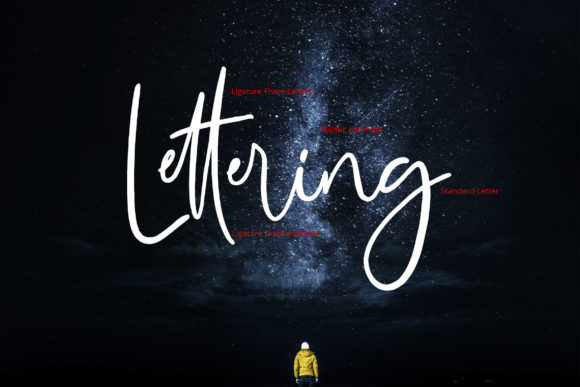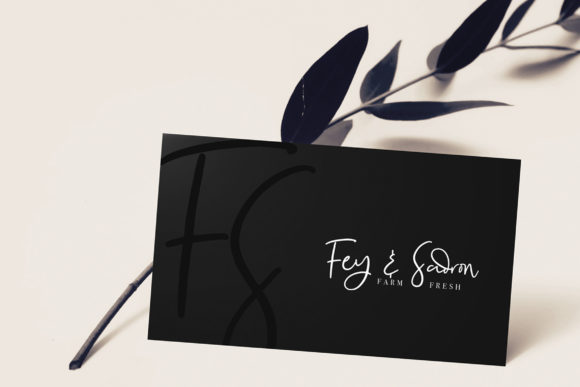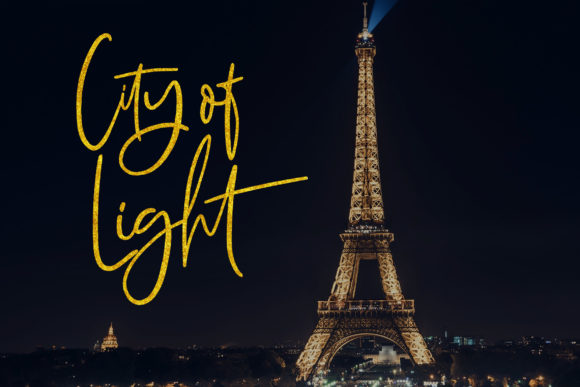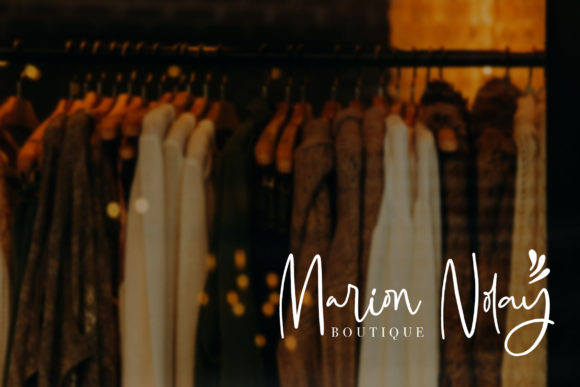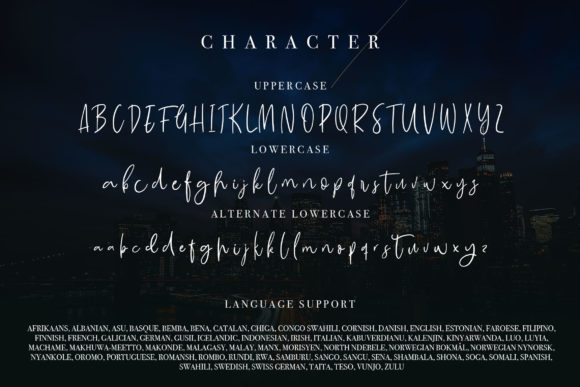
Discover the Power of Madeleine Font
Have you ever found yourself staring at a blank page, desperately searching for that perfect design element to bring your creative project to life? For designers, this moment is all too familiar. It’s the spark that sets off a chain reaction of inspiration and imagination. But what if you had the perfect tool at your fingertips to elevate your designs and make them truly stand out?
Enter the Madeleine Font, a stunning handwritten font with a bold twist that’s sure to captivate your audience. This versatile design resource is not only a high-quality addition to any project, but it’s also free to download and use, making it an absolute treasure for designers of all levels.
With its transparent background and elegant script, the Madeleine Font is the perfect solution for designers looking to add a touch of sophistication and creativity to their work. Whether you’re working on a personal or professional project, this font is sure to be a valuable asset in your design arsenal.
Key Features of Madeleine Font
- High-quality, professional design ideal for creative projects, such as invitations, greeting cards, and scrapbooking.
- Includes a transparent background, allowing for seamless integration with various design elements and backgrounds.
- Features a unique, elegant script style with beautiful flourishes, making it perfect for adding a touch of sophistication to designs.
Honest Review: Madeleine Font
As a designer, I’m always on the lookout for high-quality fonts to elevate my creative projects. Recently, I had the chance to try out the Madeleine Font, and here’s my honest review.
What works well: ✨ Madeleine Font offers a beautiful, elegant script style that’s perfect for invitations, wedding designs, and other special occasions. The font is highly customizable, allowing me to adjust the size, color, and opacity to fit my design needs. The transparent background feature is also a great asset, making it easy to layer the font over other design elements.
Limitations: ⚠️ While the Madeleine Font is great for many design projects, it may not be the best choice for bold, sans-serif designs. The font’s elegance can make it feel a bit too refined for some projects, so it’s essential to consider your design style before using it.
Overall, I’m impressed with the Madeleine Font and would recommend it to designers looking for a high-quality script font. With its customization options and transparent background feature, it’s a valuable addition to any design resource collection.
- Well-optimized for digital use
How to Use Madeleine Font
Tips for Getting the Most Out of Madeleine Font
To get the most out of the Madeleine Font, consider the following tips:
- Use a transparent background to create a seamless design.
- Experiment with different font sizes and styles to add visual interest.
- Combine the Madeleine Font with other design elements to create a unique look.